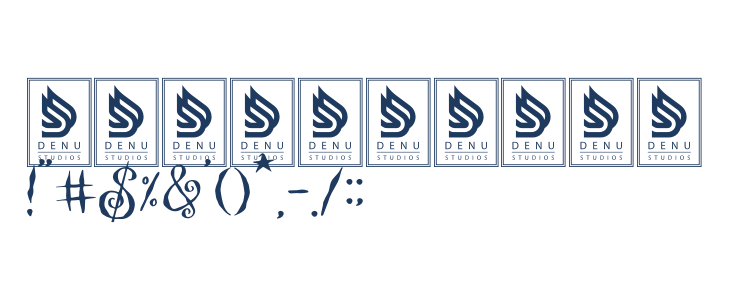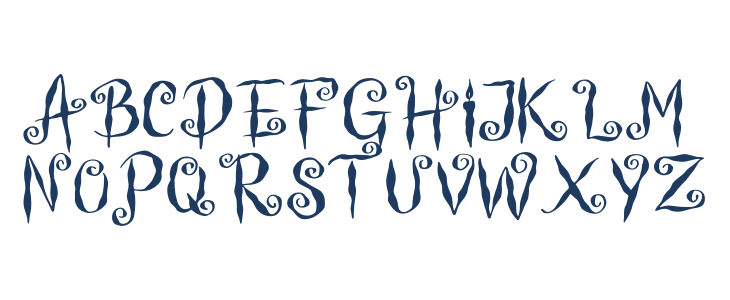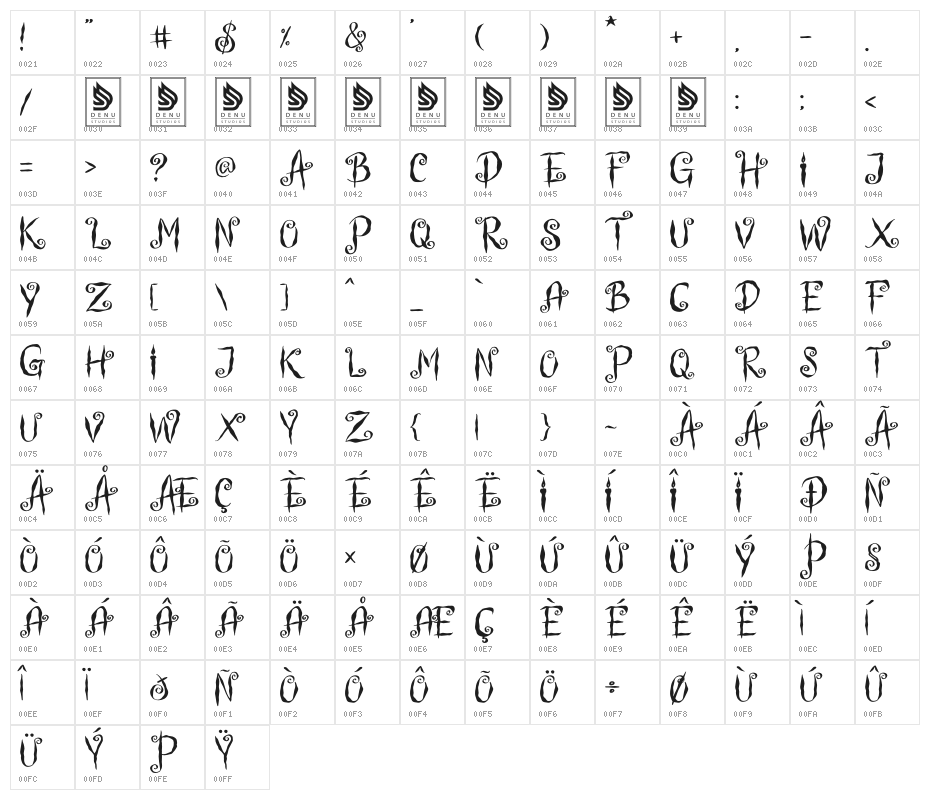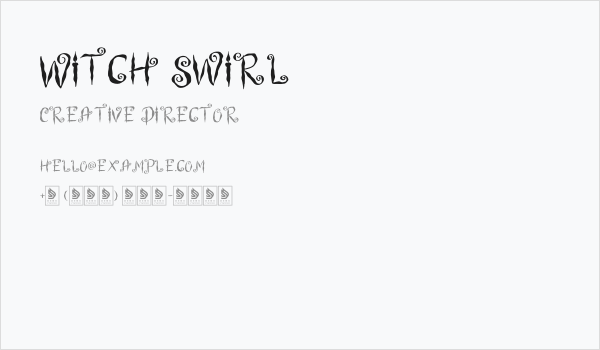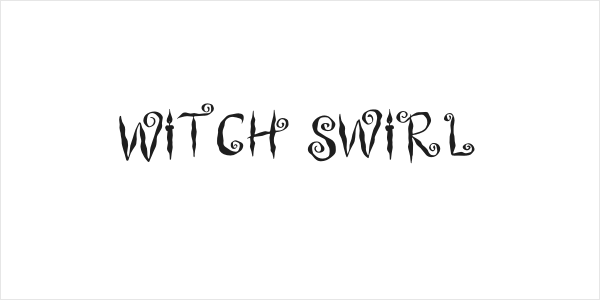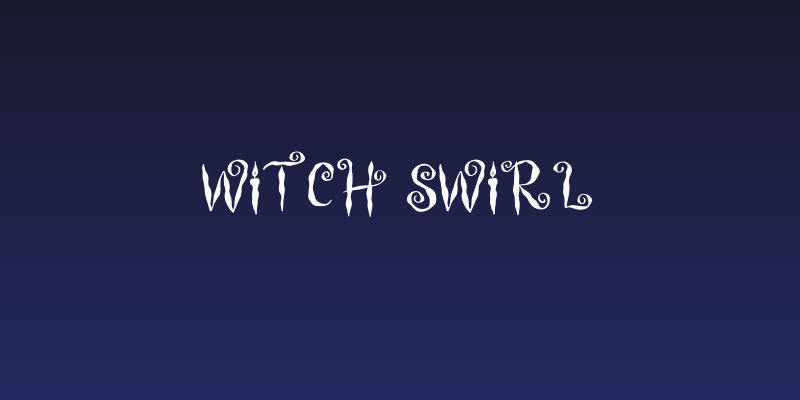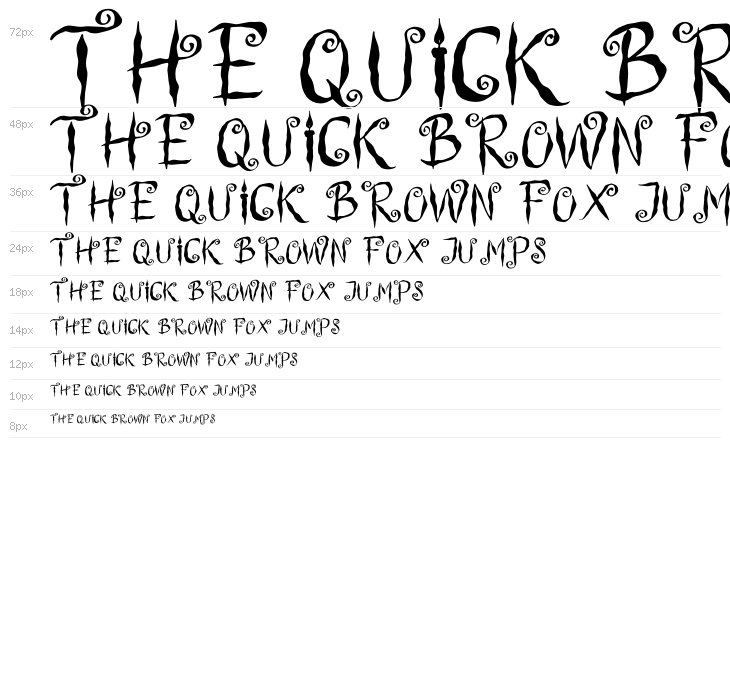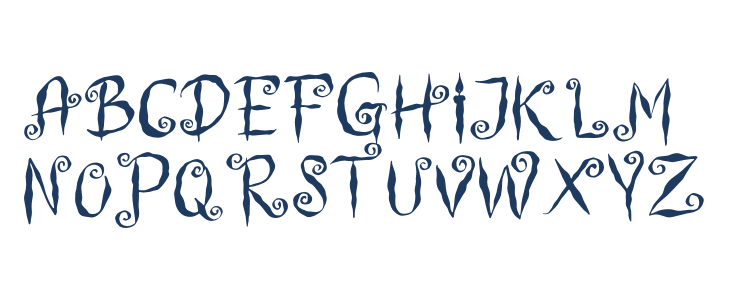
Witch Swirl Font
Witch Swirl Description
A whimsical, decorative typeface with swirling, pointed terminals and irregular strokes, evoking a magical or fantasy theme. The characters feature playful curls and elongated forms, giving a hand-drawn, enchanted appearance.
| Overall Style | Decorative, Whimsical, Fantasy |
| Use Case | Headlines, Posters, Logos, Themed Graphics |
| Proposed Projects | Halloween invitations, fantasy book covers, themed party posters, magical branding, childrenΓ’β¬β’s event materials. |